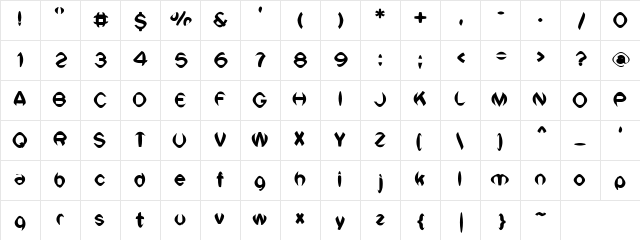
VTC SikleCell Regular
| Designer | WolfBainX |
Design Context for VTC SikleCell Typeface
VTC SikleCell is a composed and adaptable typeface that performs quietly and consistently across a wide range of design contexts.